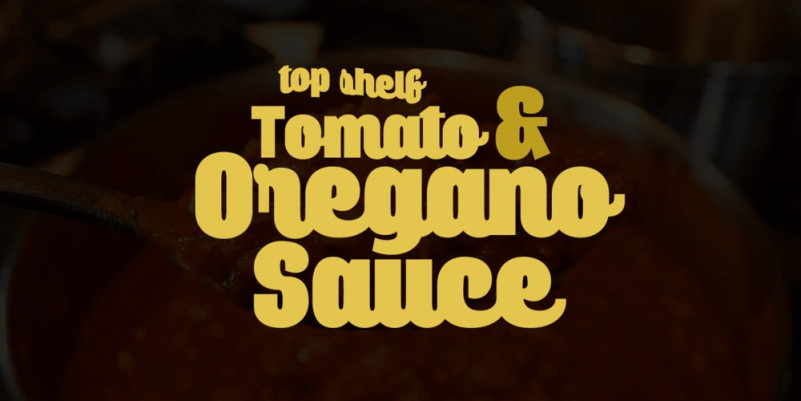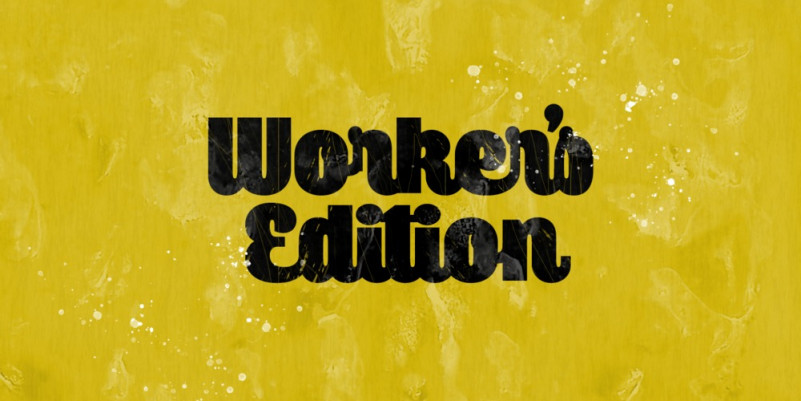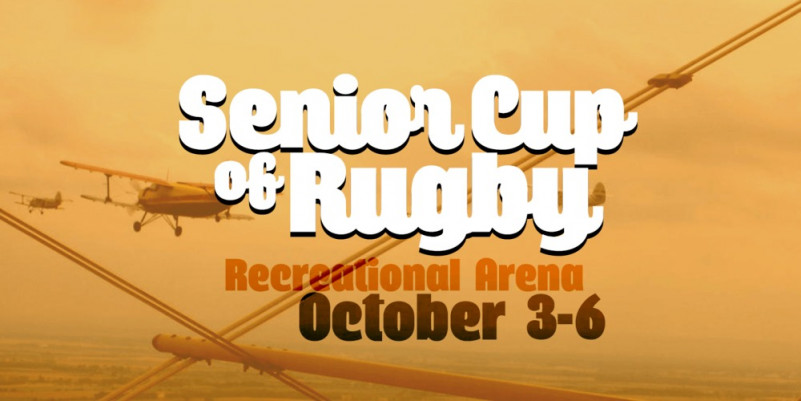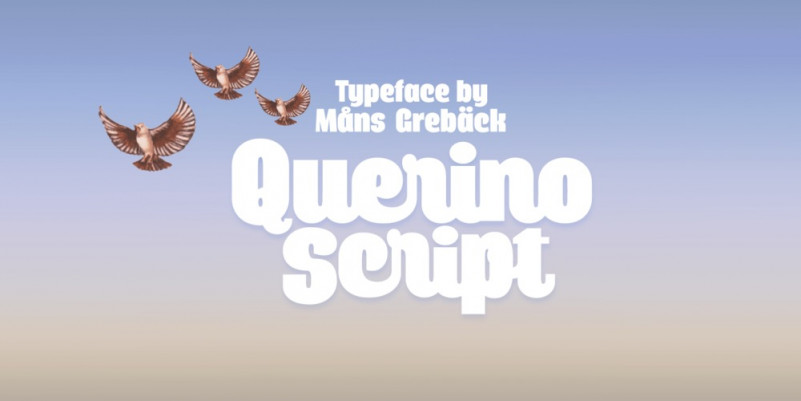
Querino Script Font
Befonts very pleased to introduce a new script font, It’s beautiful bold script typeface. It’s was inspired by classic typefaces that are synonymous with luxury brands, beauty and elegant curves, high contrast and all-round kind feel are perfect for art projects and typography across all platforms. Querino Font is designed and shared by Mans Greback. It’s an extra-bold sans-serif font, created by Måns Grebäck during 2018 and 2019. It comes as a regular, upright version and as italic. Also check out its sister typeface Querino Sans. The font is multilingual and has an extensive range of glyphs; it supports all Latin-based European languages, contains numbers as well as all symbols and characters you’ll ever need.